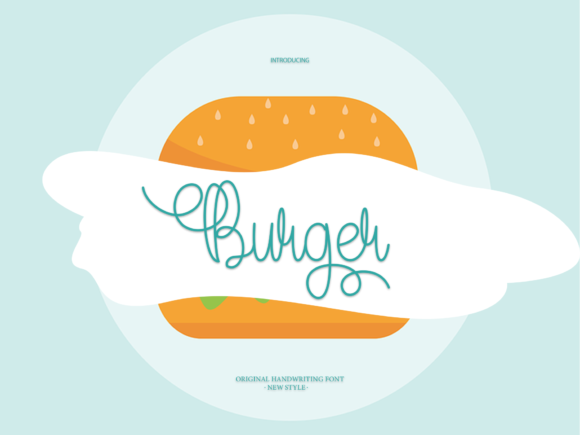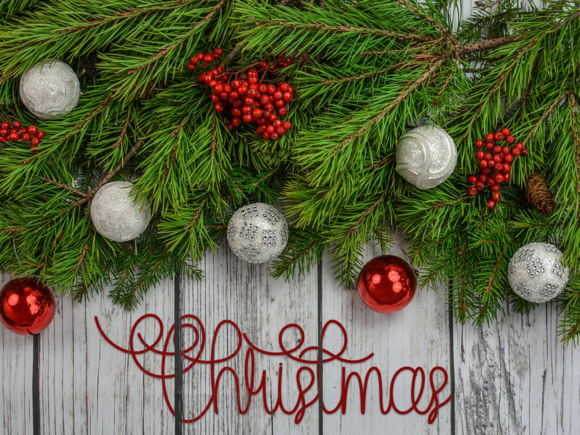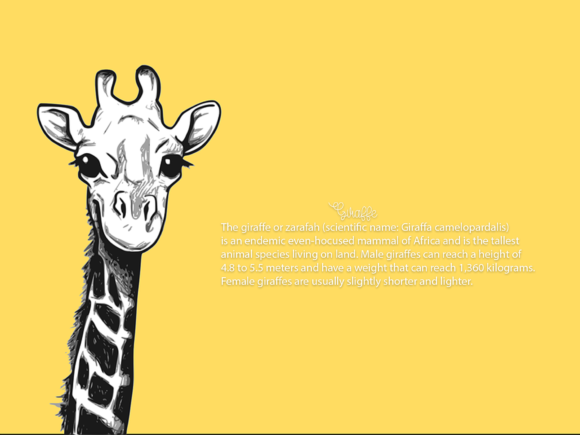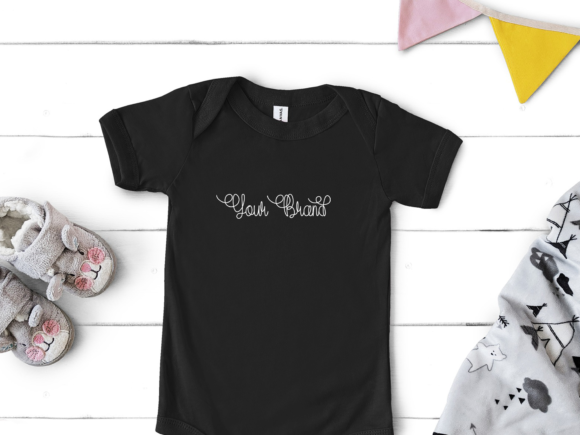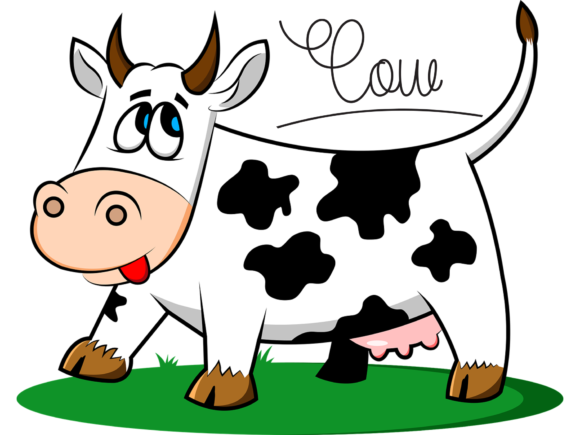
Burger Font
About Burger Font
Burger is a thin lettered, personal and whimsical script font. It can be used for plenty of designs such as letter invitations, Christmas cards, wedding invitations or pretty much anything that requires a lovely touch.